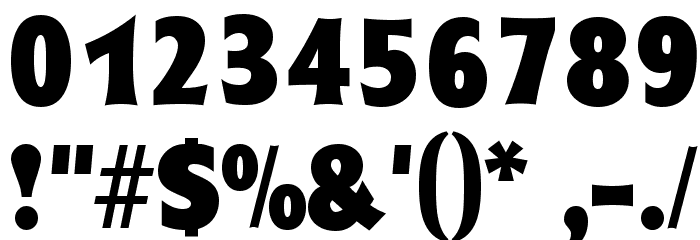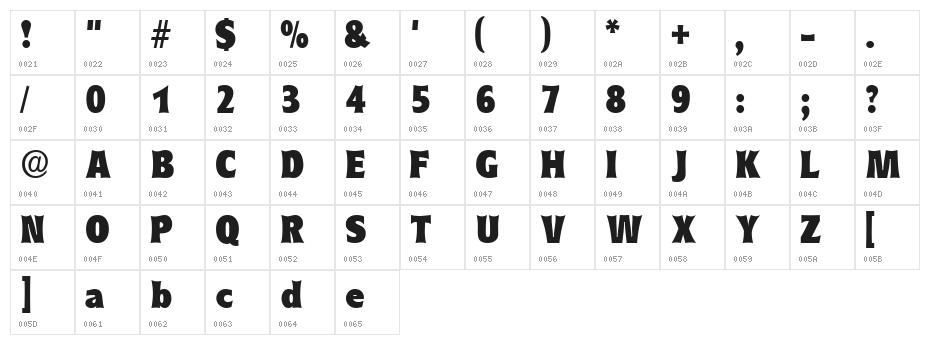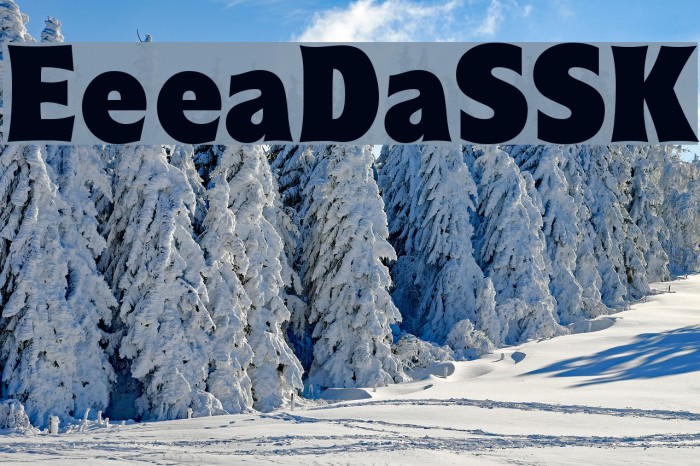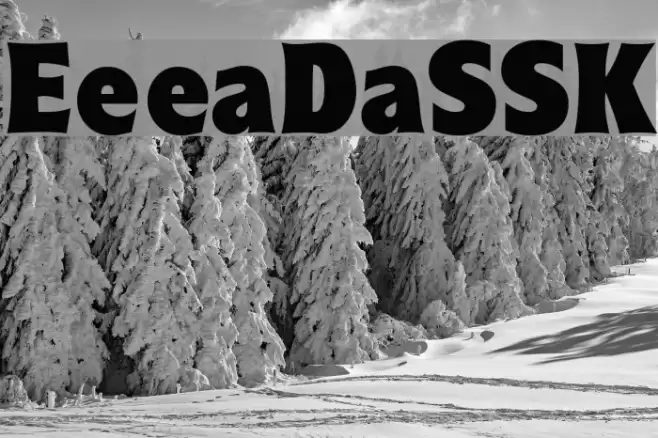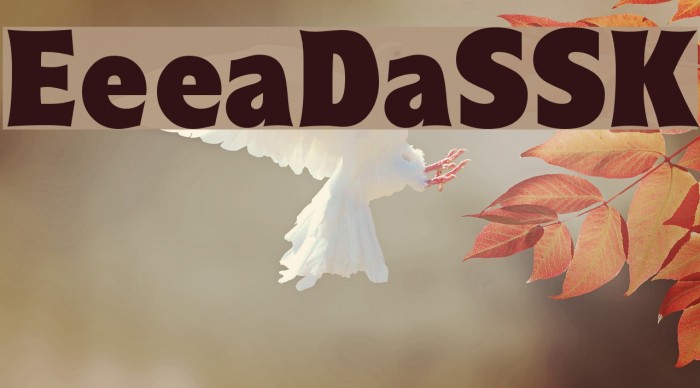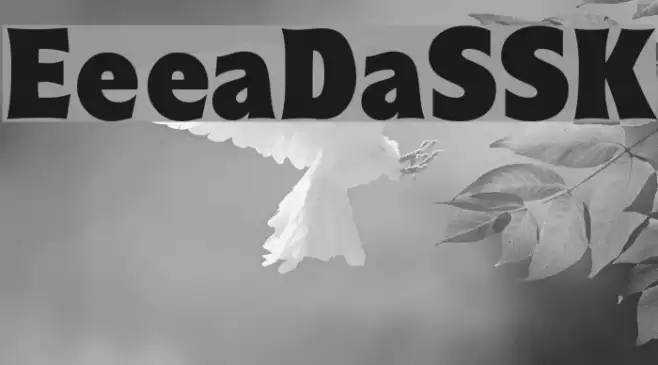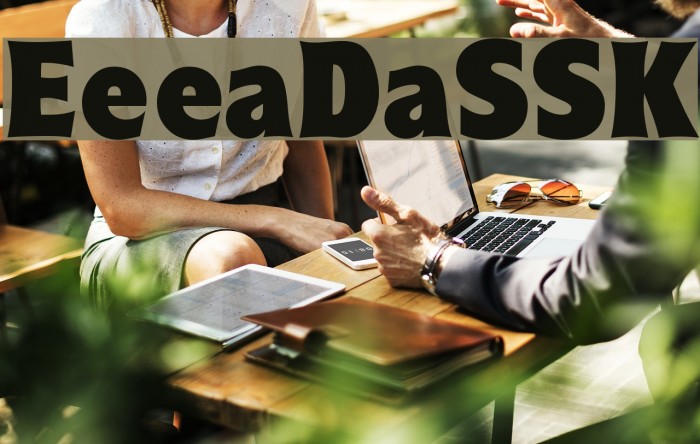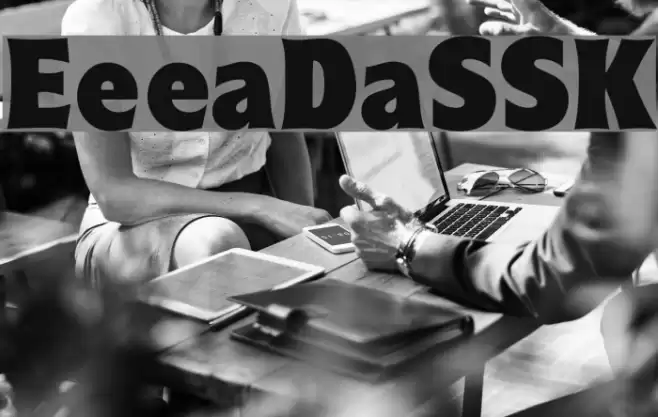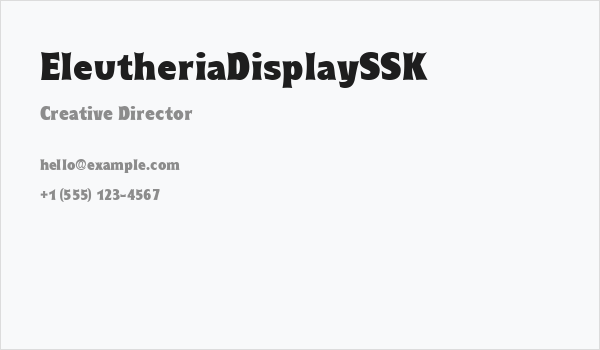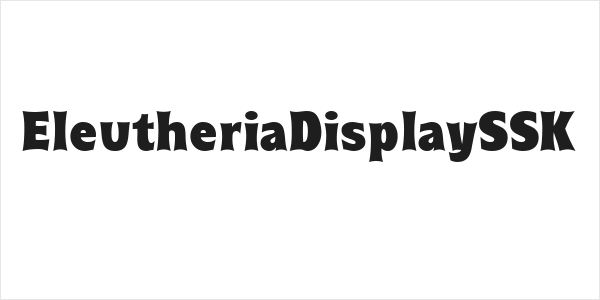
EleutheriaDisplaySSK Font
EleutheriaDisplaySSK Description
This font features a bold and dynamic style with a strong presence. The characters are designed with a playful yet assertive flair, making them stand out in any context. The uppercase letters are particularly striking, with a wide stance and thick strokes that convey strength and confidence. The lowercase letters maintain a consistent style, ensuring readability while adding a touch of whimsy. Numbers and special characters are crafted to match the boldness of the alphabet, providing a cohesive look across all elements. This font is ideal for projects that require a bold statement and a touch of creativity.